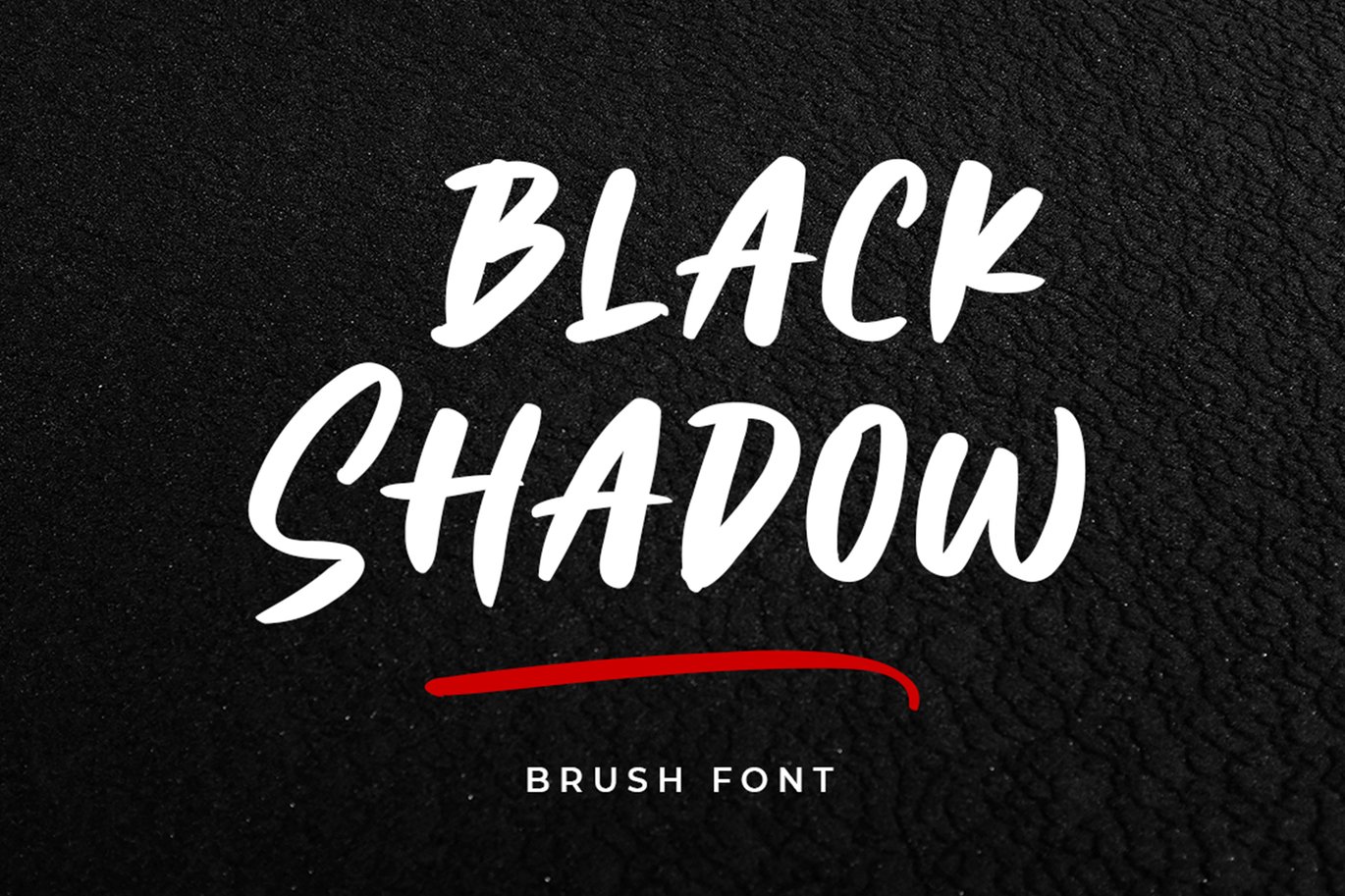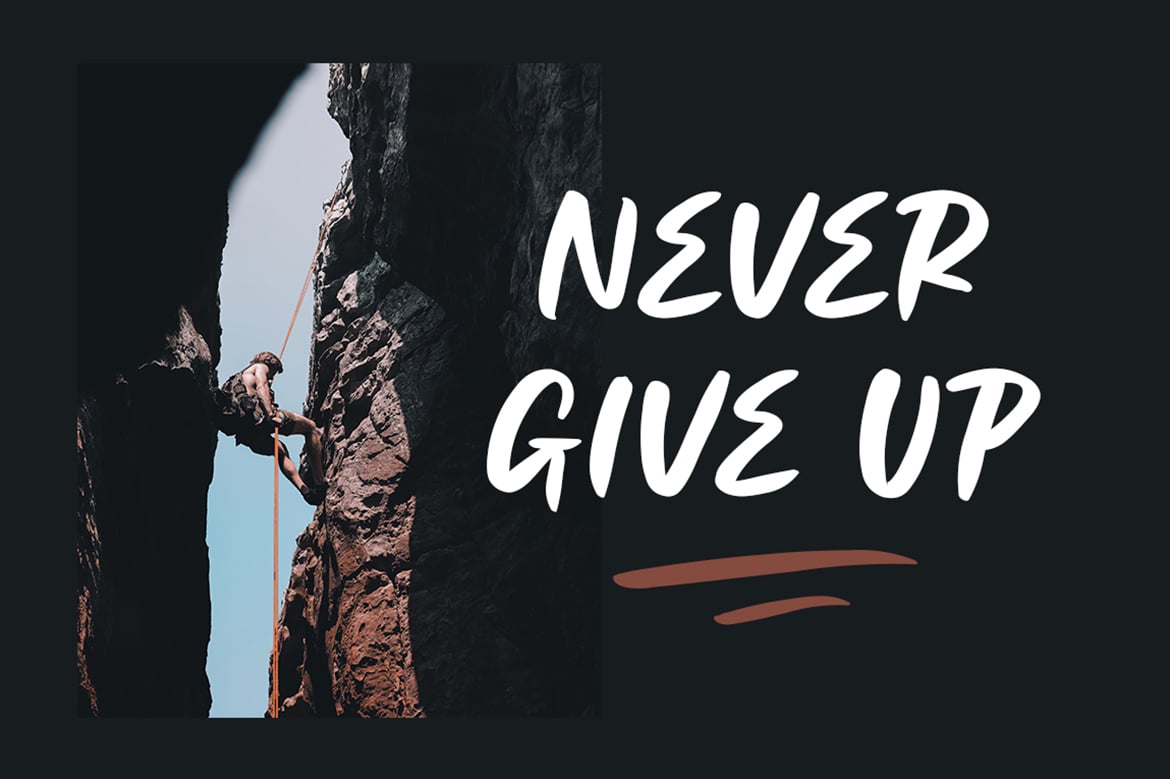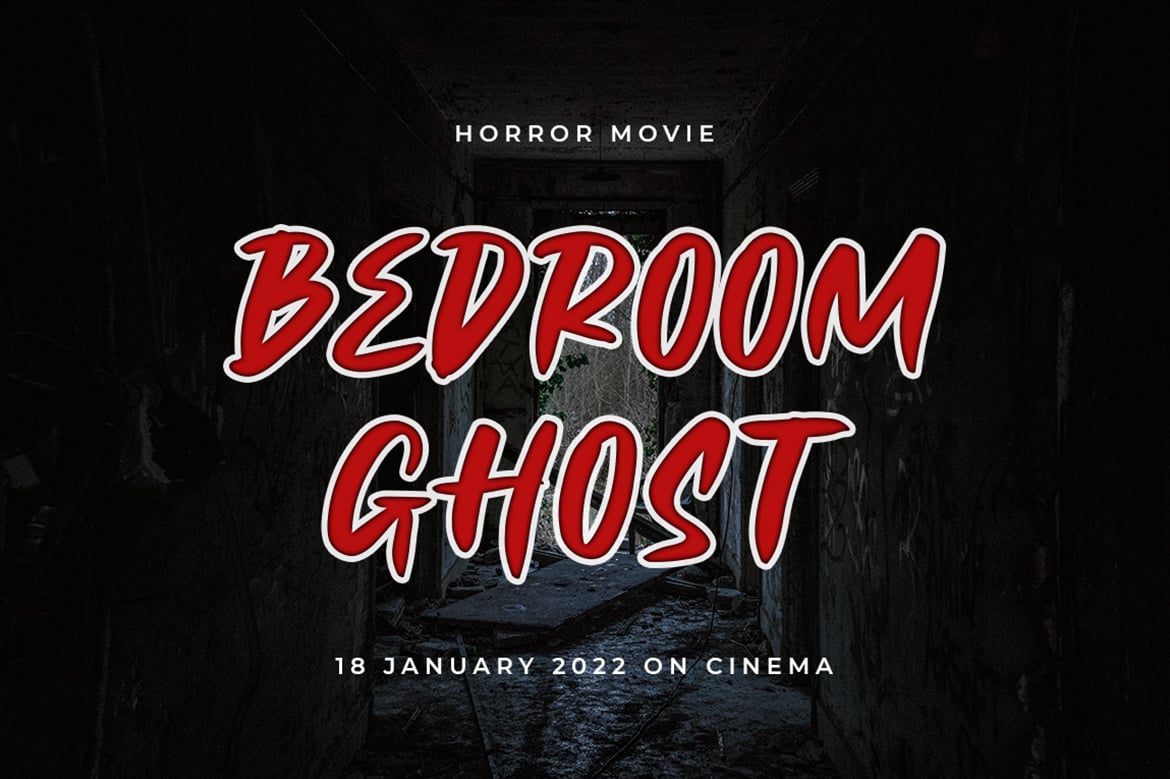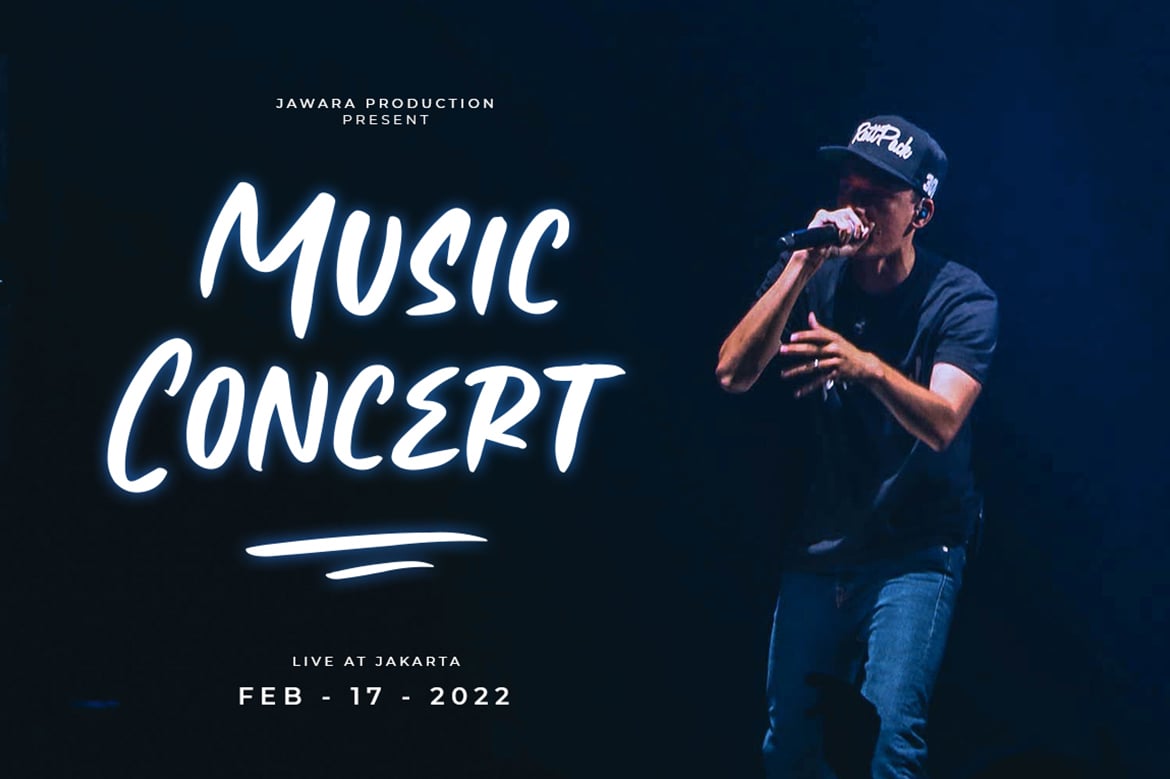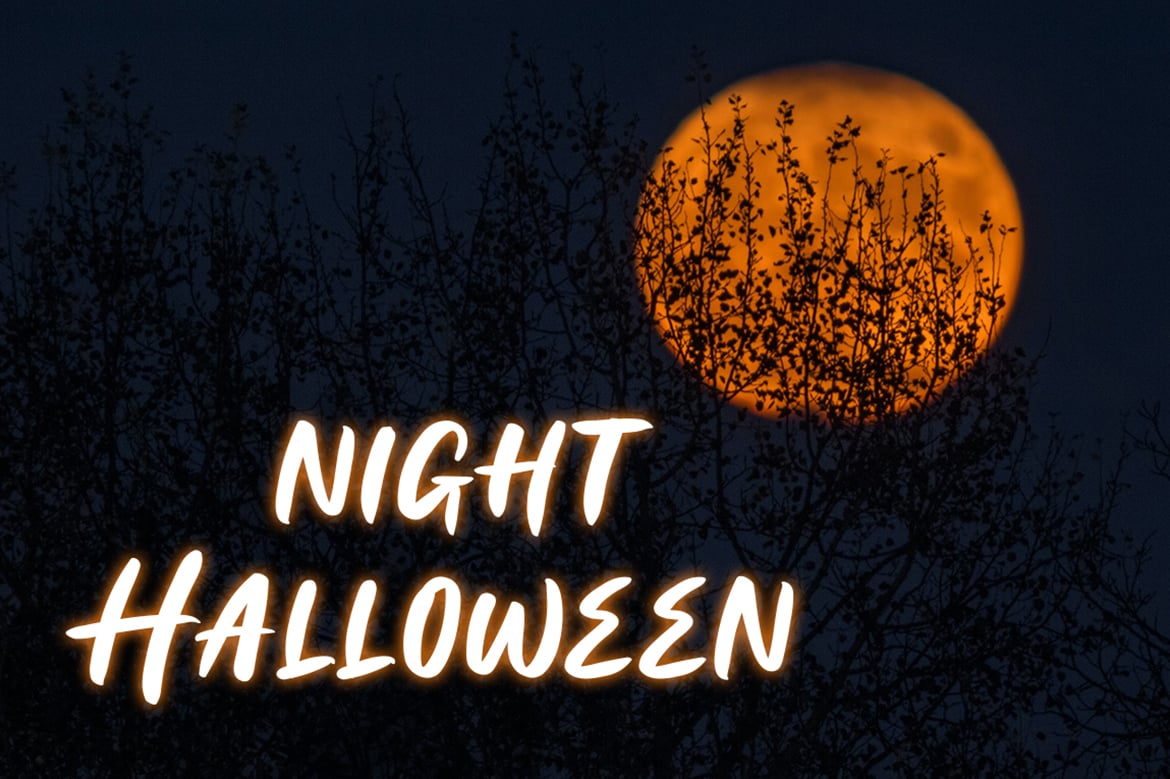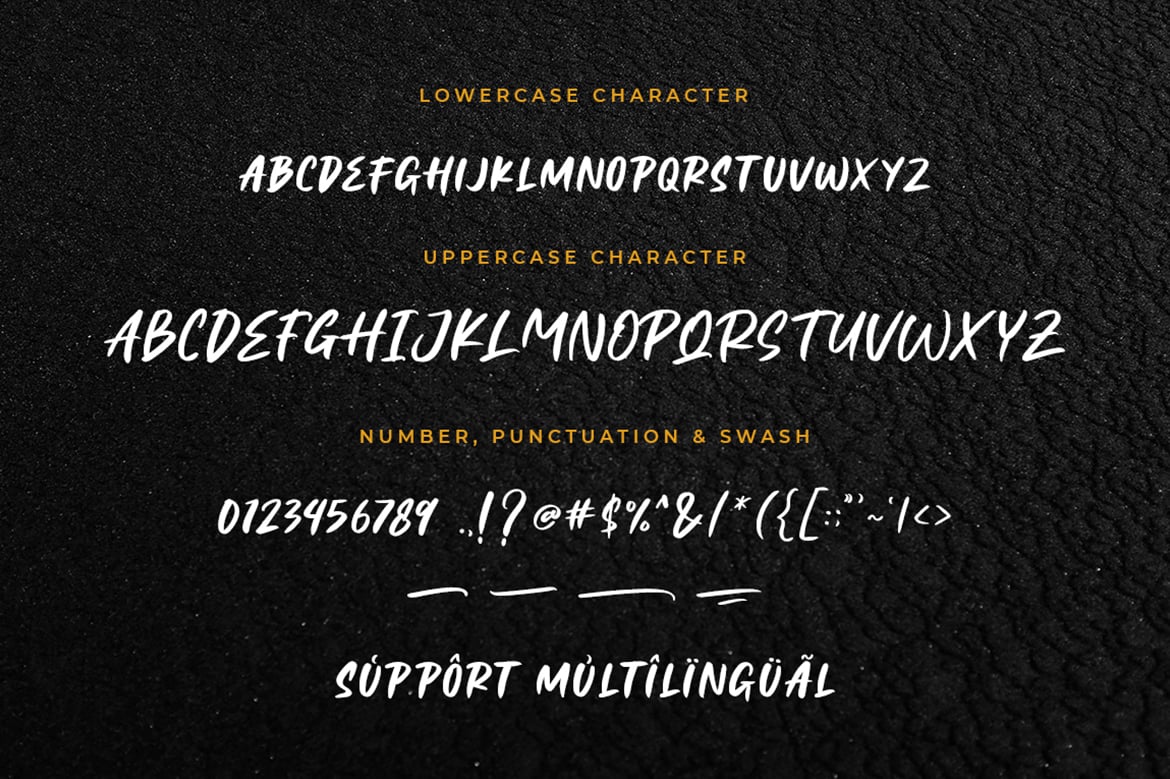
Black Shadow Font
This is our newest product called Black Shadow.
Black Shadow is a hand brush font with a natural twist. Use it for your most creative projects and watch how it makes them come alive! Get inspired by its modern simplicity!
- Support Multilingual Languange